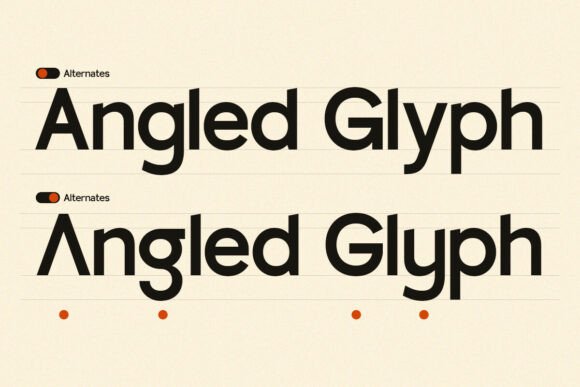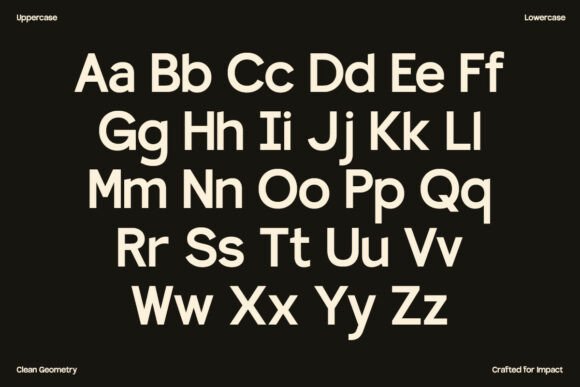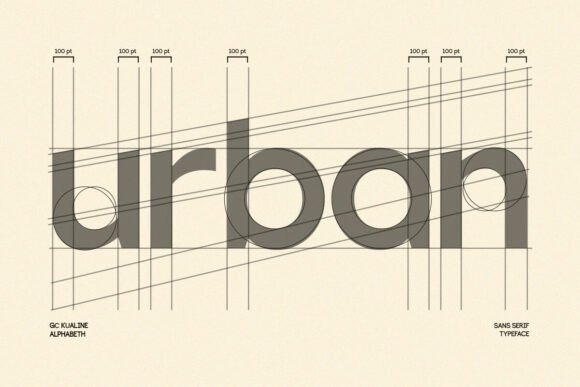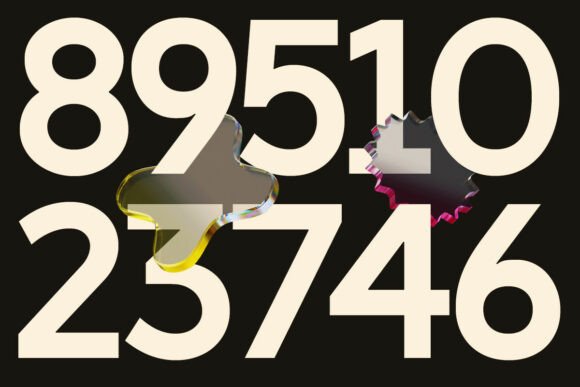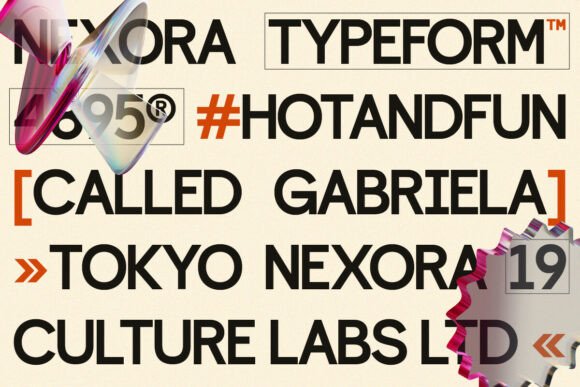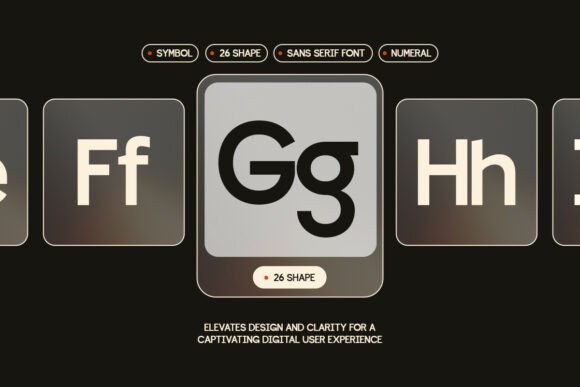
GC Kualine Font: Elevate Your Design with Modern Elegance
GC Kualine is a modern sans-serif typeface that has taken the design world by storm with its unique blend of geometric precision and contemporary elegance. This versatile font is designed to make a bold yet refined impression, perfect for a wide range of applications, from headlines and branding to logos, packaging, editorial layouts, and digital interfaces.
Clean and Balanced Structure
GC Kualine boasts a clean and balanced structure that sets it apart from other typefaces. Its smooth curves, uniform strokes, and minimalistic details create a timeless aesthetic that feels both sleek and confident. This font is crafted to provide clarity and style, making it an excellent choice for designers and crafters looking to elevate their visual communication.
Unmatched Versatility and Sophistication
GC Kualine offers unmatched versatility and sophistication, making it suitable for various design projects. Whether you’re working on high-end fashion branding, tech presentations, or lifestyle content, this typeface delivers a level of elegance and refinement that is hard to match. Its geometric precision and contemporary elegance ensure that your designs look modern, yet timeless.
Perfect for Headlines and Branding
GC Kualine is perfectly suited for headlines and branding, where making a bold impression is crucial. Its clean and balanced structure ensures that your message is conveyed with clarity, while its smooth curves and uniform strokes add a touch of sophistication. This font is designed to help you create stunning headlines and branding materials that capture attention and leave a lasting impression.
Excellent for Logos and Packaging
GC Kualine is also an excellent choice for logos and packaging design. Its geometric precision and minimalistic details make it perfect for creating modern and sleek logos that stand out. The font’s versatility ensures that it can be used for a wide range of packaging designs, from luxury products to everyday consumer goods.
Ideal for Editorial Layouts and Digital Interfaces
In addition to its use in headlines, branding, logos, and packaging, GC Kualine is also ideal for editorial layouts and digital interfaces. Its clean and balanced structure makes it easy to read, even at small font sizes, while its smooth curves and uniform strokes add a touch of elegance to any design. This font is perfect for creating stunning editorial layouts, websites, and mobile apps that require a modern and sophisticated look.
Key Features of GC Kualine Font
- Modern sans-serif typeface: GC Kualine is a modern sans-serif typeface that blends geometric precision with contemporary elegance.
- Clean and balanced structure: The font features a clean and balanced structure that ensures clarity and style.
- Smooth curves and uniform strokes: GC Kualine’s smooth curves and uniform strokes create a timeless aesthetic that feels both sleek and confident.
- Minimalistic details: The font’s minimalistic details make it perfect for creating modern and sleek designs.
- Unmatched versatility and sophistication: GC Kualine offers unmatched versatility and sophistication, making it suitable for various design projects.
GC Kualine is a versatile and sophisticated typeface that is perfect for designers and crafters looking to elevate their visual communication. Its modern sans-serif design, clean and balanced structure, and smooth curves and uniform strokes make it an excellent choice for a wide range of applications. Whether you’re working on headlines, branding, logos, packaging, editorial layouts, or digital interfaces, GC Kualine is sure to deliver a level of elegance and refinement that is hard to match.